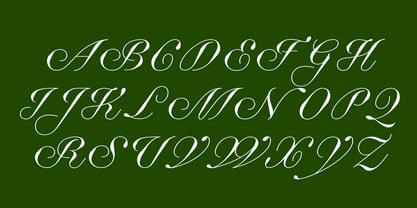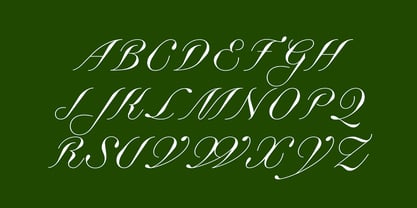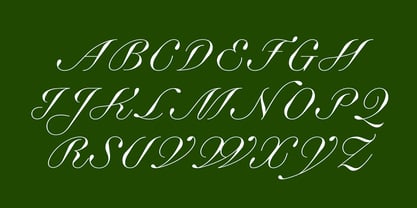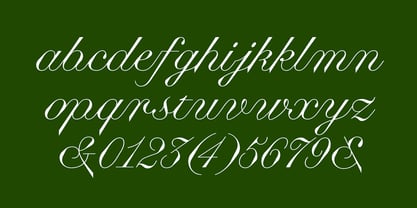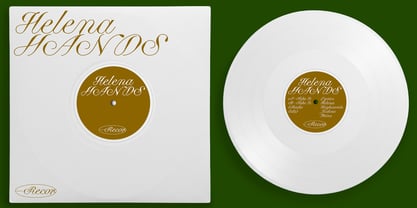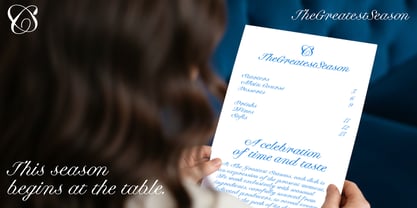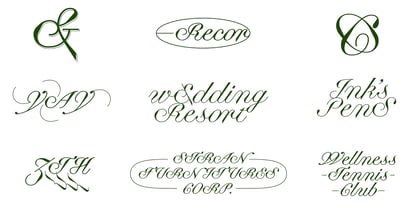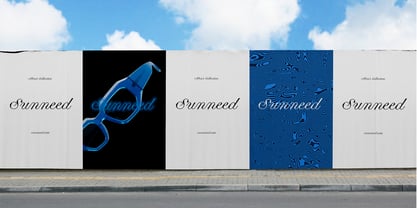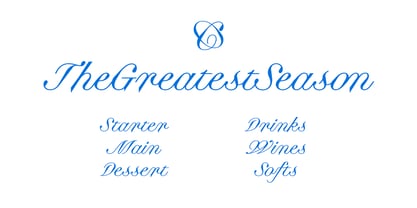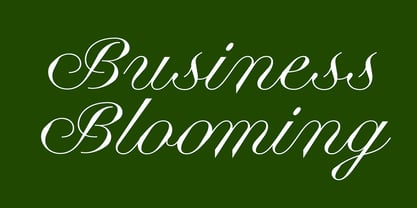
Business Blooming
by Pizzatypefaces
The Business Blooming Font Family was designed by Adrien Midzic and published by Pizzatypefaces. Business Blooming contains 4 styles and family package options. More about this family
The Business Blooming font is a ‘roundhand’ style typeface designed for luxury and brands with contemporary subtlety. She offers 3 types of legibility depending of the size. Display, Normal and Text. Uppercases has 2 differents Stylistics Sets to keep it more simple. Its assertive, almost liquid fluidity is balanced by deliberately tense counters that convey distinction and control. Beneath its generous curves lies precise architecture. The internal spaces are stretched and contained, creating an elegant tension that prevents softness from becoming excessive. This duality of enveloping roundness and structured precision produces a sophisticated rhythm that is both sensitive and confident. Business Blooming excels in premium branding for luxury houses, cosmetics, perfumes, fashion, and high-end hospitality. It offers subtle presence in headlines, refined identity in logos, and a contemporary voice across editorial and digital applications. In lighter weights it expresses restraint and elegance. In bolder weights the internal tension becomes more pronounced, revealing assured modernity. Its tone is delicate yet strategic, emotional without fragility, luxurious without ostentation. Business Blooming embodies a new form of sophistication, a typeface where fluidity becomes language and tension becomes distinction.
Designers: Adrien Midzic
Foundry: Pizzatypefaces